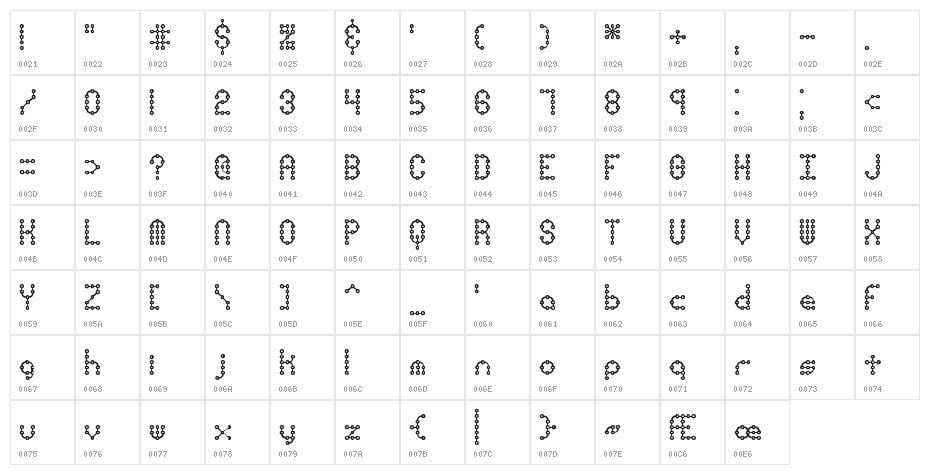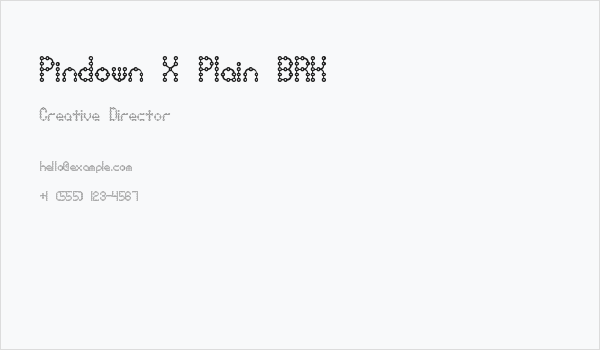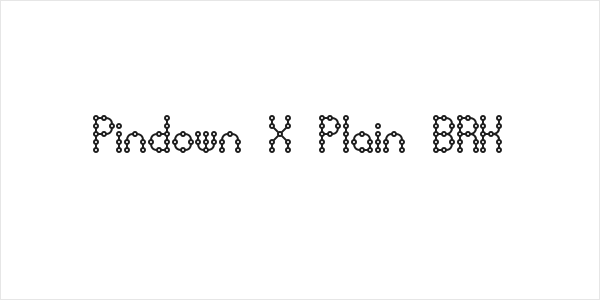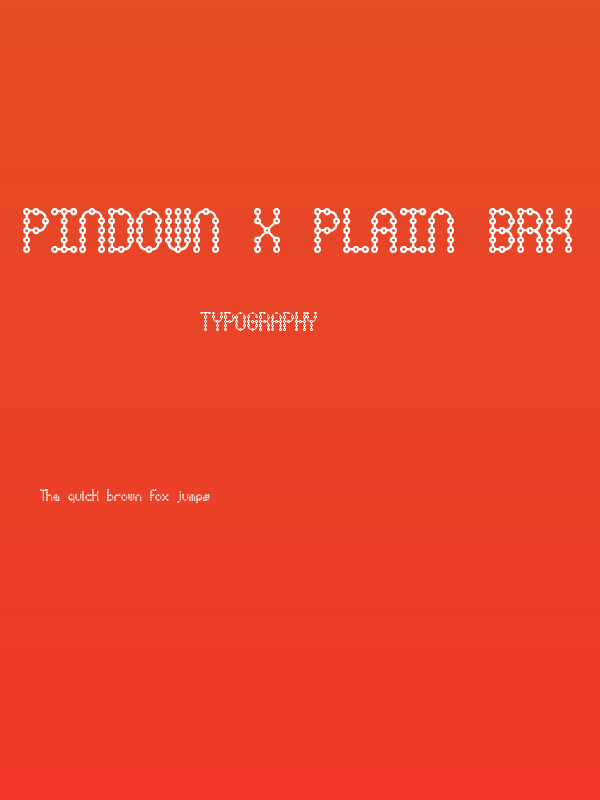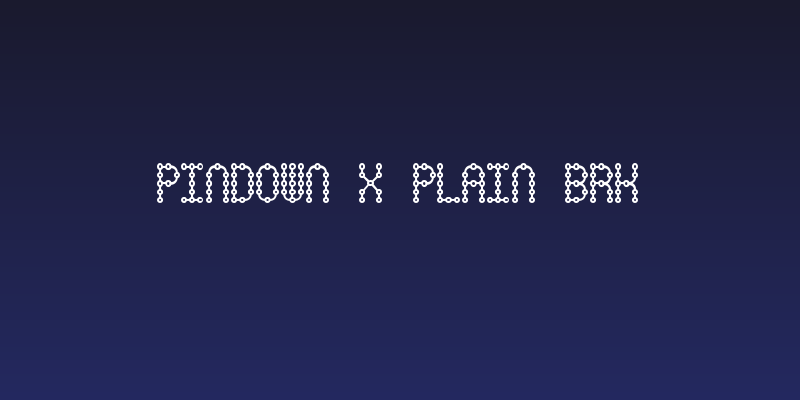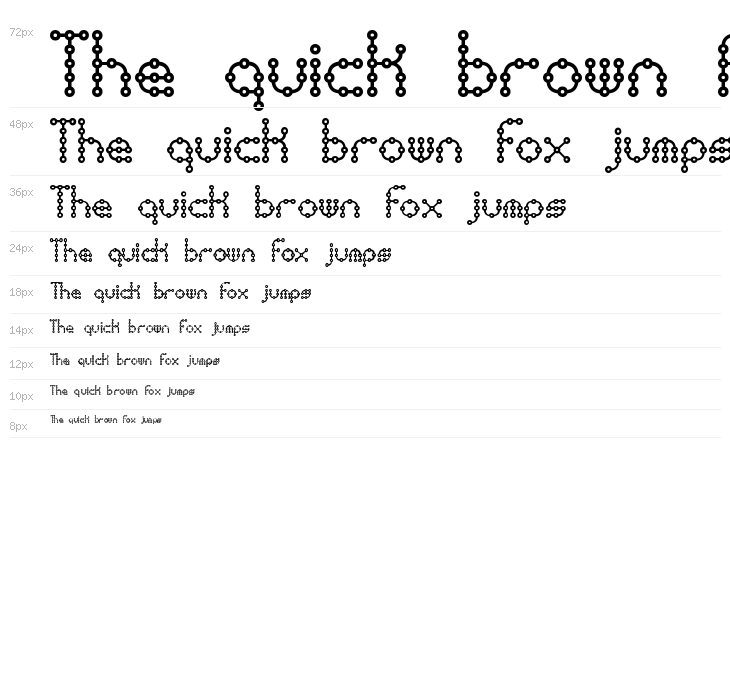
Pindown X Plain BRK Font
Pindown X Plain BRK Description
This font features a unique and playful design, characterized by its dotted, interconnected style. Each character is composed of small circular dots linked together, creating a visually intriguing and decorative appearance. The font maintains a consistent pattern across uppercase, lowercase, numbers, and special characters, ensuring a cohesive look. Its distinct style makes it stand out, offering a modern twist on traditional typography. The rounded, bubbly nature of the characters adds a sense of fun and creativity, making it suitable for projects that aim to capture attention and convey a sense of whimsy.
| Proposed Projects | Ideal for children's books, playful branding, creative posters, and party invitations. |